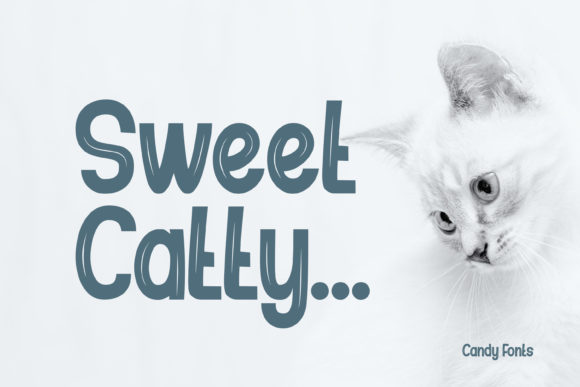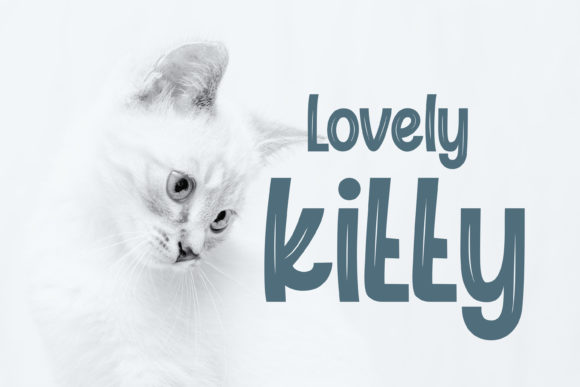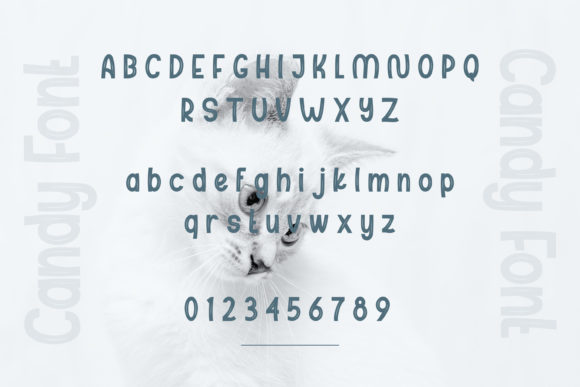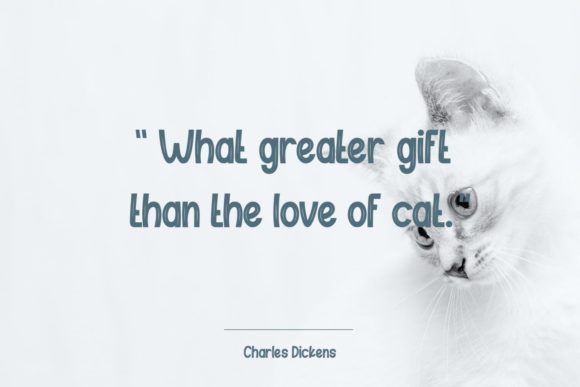
Candy Font: The Sweetest Way to Add Uniqueness to Your Designs
In the world of typography, fonts play a crucial role in making or breaking a design. A good font can elevate your project from ordinary to extraordinary, while a bad one can make it look dull and unappealing. If you’re a designer or crafter looking for a font that can add a touch of uniqueness and freshness to your work, then you’re in luck! Introducing Candy Font, a modern display font that’s perfect for headlines, big text, branding, logotypes, and more.
What is Candy Font?
Candy Font is a unique and modern display font that’s designed to make a statement. With its bold and playful style, this font is perfect for creating promotional content and marketing graphics that need to stand out from the crowd. Whether you’re working on a logo, brochure, or social media post, Candy Font is the perfect choice for adding a touch of sweetness to your design.
Key Features of Candy Font
- Unique and Modern Design: Candy Font boasts a unique and modern design that’s perfect for creating fresh and eye-catching graphics.
- Perfect for Headlines and Big Text: With its bold and playful style, Candy Font is ideal for headlines, big text, and titles.
- Branding and Logotypes: This font is perfect for creating custom branding and logotypes that need to make a statement.
- Multipurpose: Candy Font can be used for a variety of design projects, including promotional content, marketing graphics, and more.
Why Choose Candy Font?
So, why choose Candy Font over other fonts? Here are just a few reasons:
- Uniqueness: Candy Font is a one-of-a-kind font that’s sure to make your design stand out from the crowd.
- Freshness: This font has a fresh and modern feel that’s perfect for creating contemporary designs.
- Versatility: Candy Font can be used for a variety of design projects, from logos and brochures to social media posts and more.
- Ease of Use: This font is easy to read and works well in both digital and print formats.
How to Use Candy Font
Using Candy Font is easy! Here are a few tips to get you started:
- Pair it with Other Fonts: Candy Font pairs well with other fonts, so feel free to experiment with different combinations.
- Use it for Headlines: This font is perfect for headlines and big text, so use it to make a statement.
- Add Color and Texture: Add some color and texture to your design to make it pop.
- Experiment with Different Sizes: Don’t be afraid to experiment with different sizes and styles to find the perfect look for your design.
Who Can Benefit from Candy Font?
Candy Font is perfect for a variety of designers and crafters, including:
- Graphic Designers: If you’re a graphic designer looking for a unique and modern font to add to your collection, then Candy Font is perfect for you.
- Logos and Branding Specialists: This font is ideal for creating custom logos and branding materials that need to make a statement.
- Social Media Managers: Candy Font is perfect for creating eye-catching social media posts and graphics.
- Crafters and Makers: If you’re a crafter or maker looking for a font to add a personal touch to your projects, then Candy Font is a great choice.
In conclusion, Candy Font is a unique and modern display font that’s perfect for adding a touch of sweetness to your designs. With its bold and playful style, this font is ideal for headlines, big text, branding, logotypes, and more. Whether you’re a designer, crafter, or social media manager, Candy Font is a great choice for creating fresh and eye-catching graphics. So why wait? Download Candy Font today and add a touch of uniqueness to your designs!